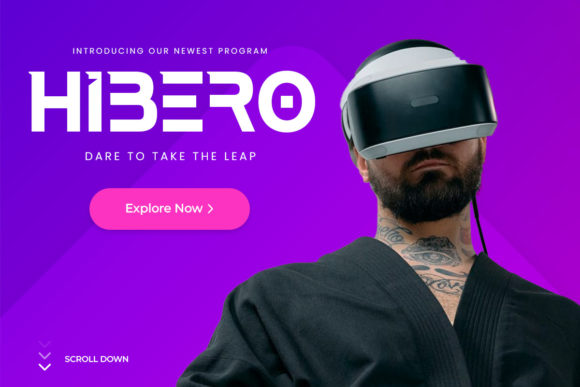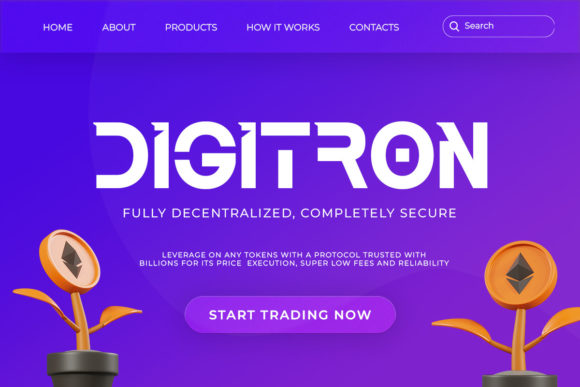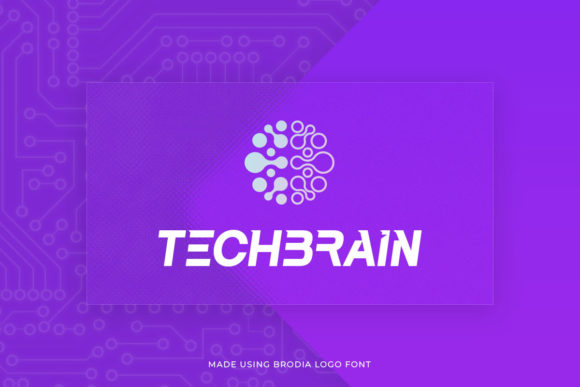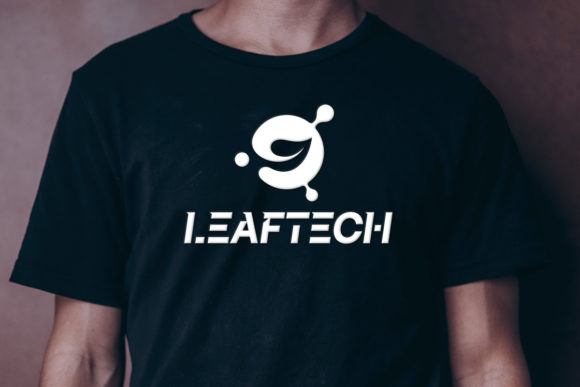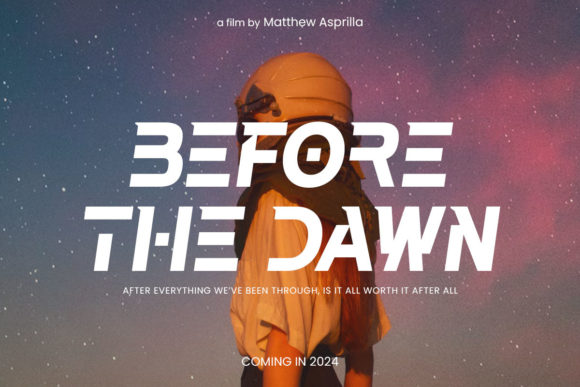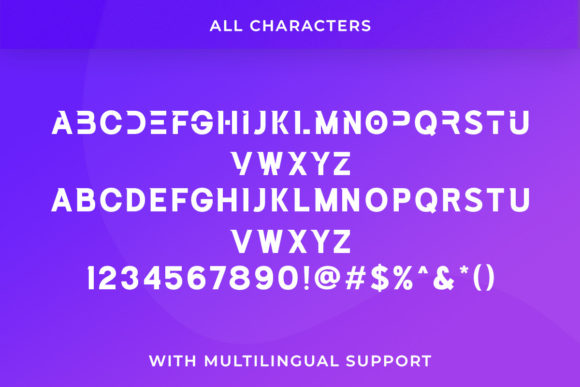
Bold Your Designs with the Future-Proof Brodia Font
Imagine you’re scrolling through a sleek tech magazine, and the words ‘Artificial Intelligence’ and ‘Quantum Computing’ leap off the page in a way that’s both futuristic and sophisticated. That’s the kind of impact you can create with the right font – and that’s exactly what the Brodia Font is designed to deliver.
Brodia Font is a modern, cutting-edge typeface that captures the essence of tomorrow’s technology. Its sleek lines, clean shapes, and precise geometry evoke a sense of luxury and innovation, making it the perfect choice for designers who want to add a touch of futurism to their projects.
Whether you’re working on a high-tech startup’s branding or a sci-fi novel’s cover art, the Brodia Font is an invaluable asset in your design toolkit. Its versatility and sophistication make it a valuable addition to any designer’s arsenal, and its future-proof design ensures that it will remain relevant for years to come.
Brodia Font Key Features
- Font Family: Brodia Font is a sans-serif font family designed for digital use.
- Size: The font family includes 6 weights ranging from Light to ExtraBold.
- Resolution: Designed for high-resolution displays, ideal for use on screens with resolutions of 72 dpi and above.
- Unique Characteristics: Brodia Font features a clean and modern design, with subtle rounded corners and a high x-height for improved readability.
Brodia Font Review
I recently had the chance to work with the Brodia font, and I’m here to give you the lowdown on what I liked and what didn’t quite hit the mark.
- The Brodia font has a unique and modern aesthetic that can add a touch of sophistication to any design.
- The font is highly customizable, with a wide range of weights and styles to choose from.
- The font is highly legible, even at smaller font sizes, making it perfect for body text.
- The font may be a bit too bold for some designs, overpowering the surrounding elements.
- The font doesn’t come with a lot of language support, which can be a limitation for multilingual designs.
- The font may not be the best choice for large block of text, as it can become overwhelming.
The Brodia font is a solid choice for designers looking to add a modern touch to their designs. While it may have some limitations, the font’s unique aesthetic and high customizability make it a great addition to any font collection. However, it’s not a one-size-fits-all solution, and designers should carefully consider their design goals before choosing the Brodia font.
For the best results when using Brodia Font, keep the following tips in mind:
– Use the font in combination with other elegant and sophisticated fonts to create a balanced design.
– Experiment with different font sizes and weights to add depth and interest to your design.
– Use the font’s advanced features, such as ligatures and swashes, to add personality and flair to your design.
Brodia Font is ideal for a variety of design projects, including:
– Luxury brand logos and marketing materials
– High-end packaging and product design
– Elegant and sophisticated web design
Alternatives to Brodia Font
Montserrat is a popular sans-serif font designed by Julieta Ulanovsky. It is a modern and sleek font that is perfect for digital design, particularly for titles and headings. Montserrat is a great alternative to Brodia Font as it offers a similar clean and minimalist look, but with a more geometric feel.
Open Sans is a clean and modern sans-serif font designed by Steve Matteson. It is highly legible and works well for both digital and print designs. Open Sans is a good alternative to Brodia Font as it offers a similar neutral and friendly feel, but with a more rounded and approachable look.
Q: Can I customize the Brodia Font for my project?